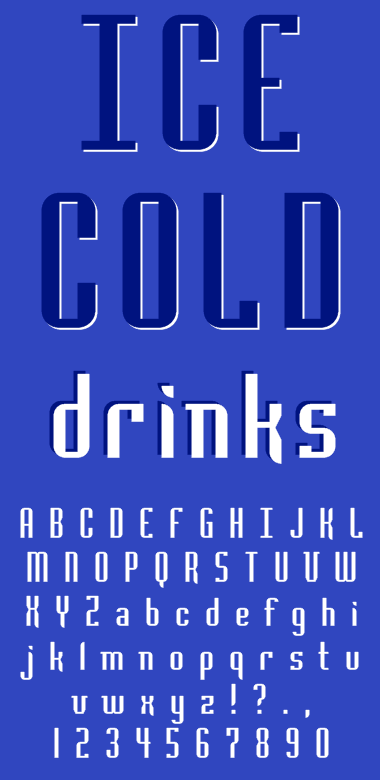
Vend
aphoria
Inspired by a vending machine at work. All the machine had was
COLD
drinks
so, I made up the rest.
I made a to small change the 2. I rounded the top-left corner.
My sample still shows the old 2.
i like those little features you put in there. like the extended stroke on K, R, X...
Thanks saberrider. The original k had the extended leg, so I borrowed the idea for the x, K, R, and X.
Very nice details, they make the diference.